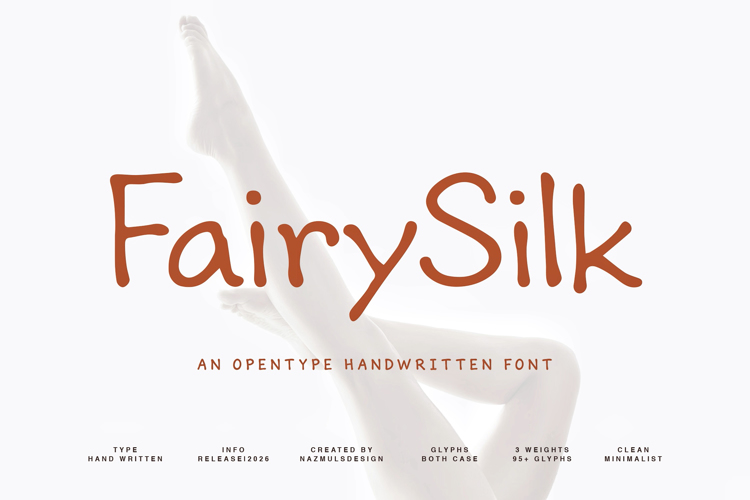
Fairy Silk Font
FairySilk is a refined handwritten typeface that captures the softness of natural strokes with a modern minimalist touch. Inspired by fluid ink movements and effortless pen flow, this font brings warmth, elegance, and personality into every letter.
Whether you're building a fashion brand, designing luxury packaging, crafting social media content, or creating signature-style logos, FairySilk delivers a soft yet confident visual presence.